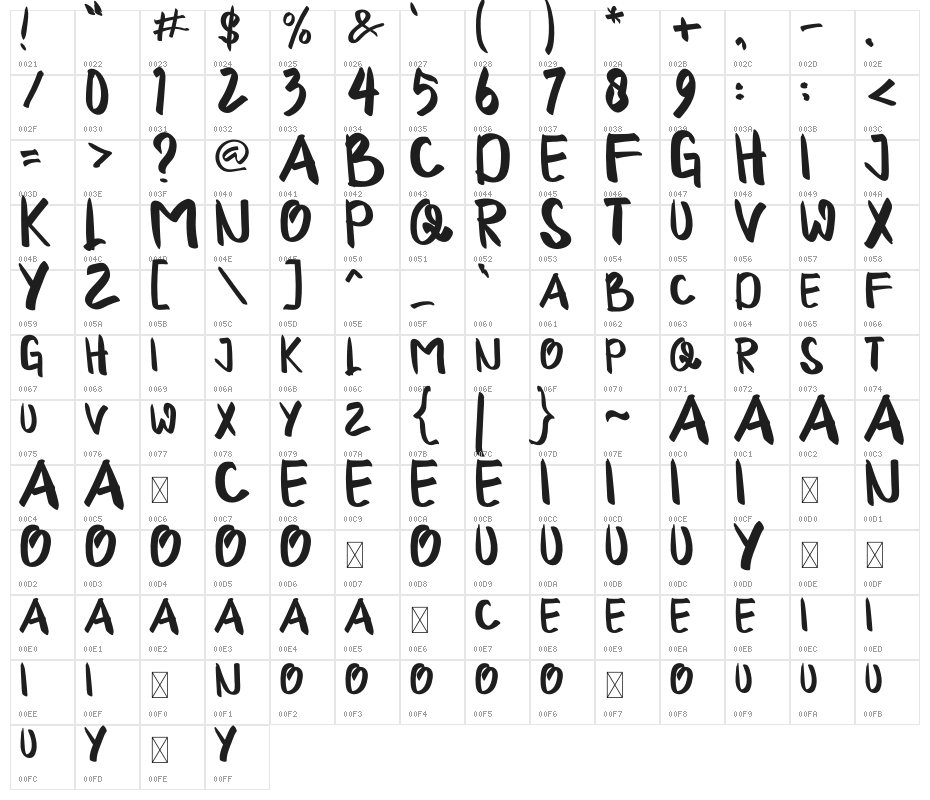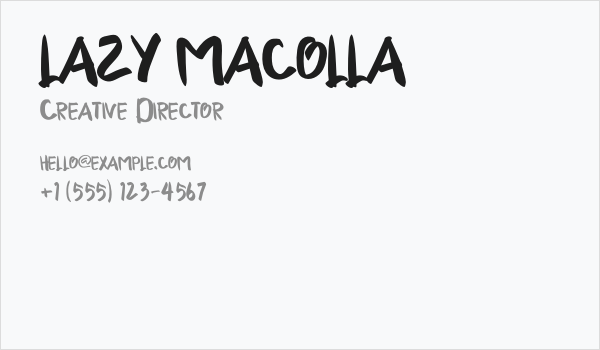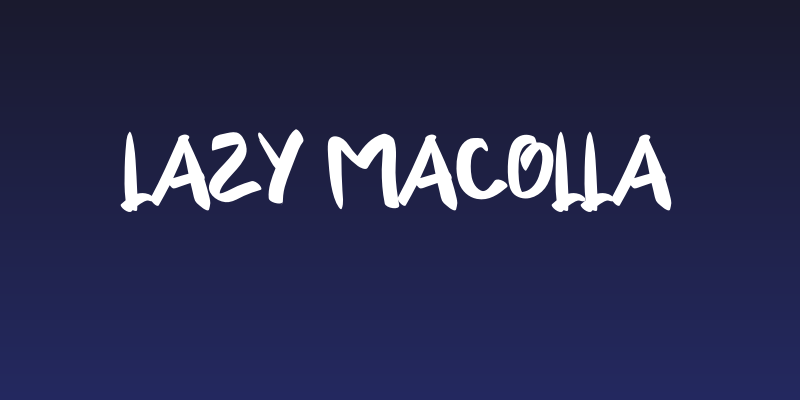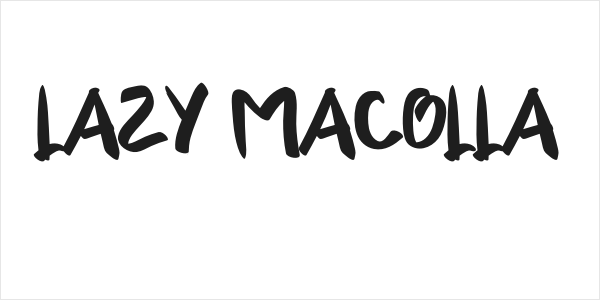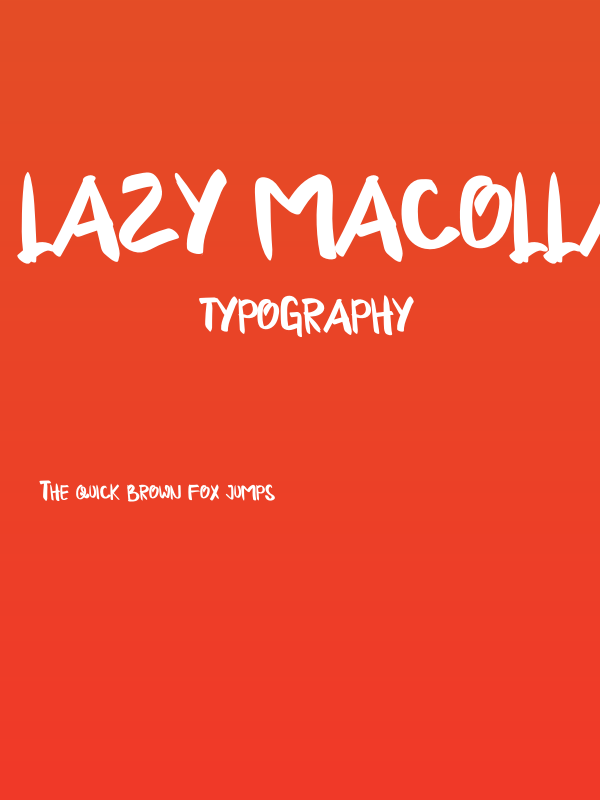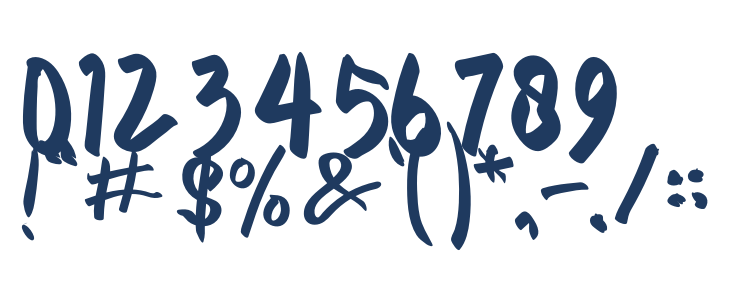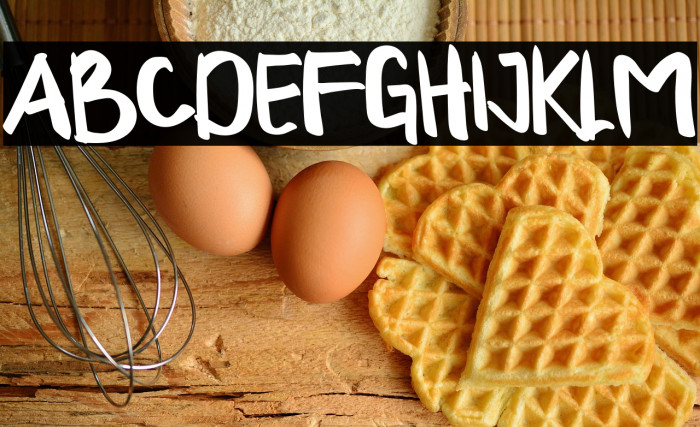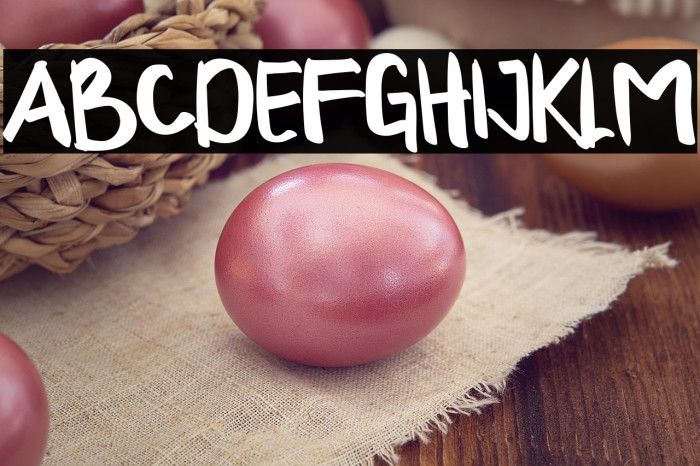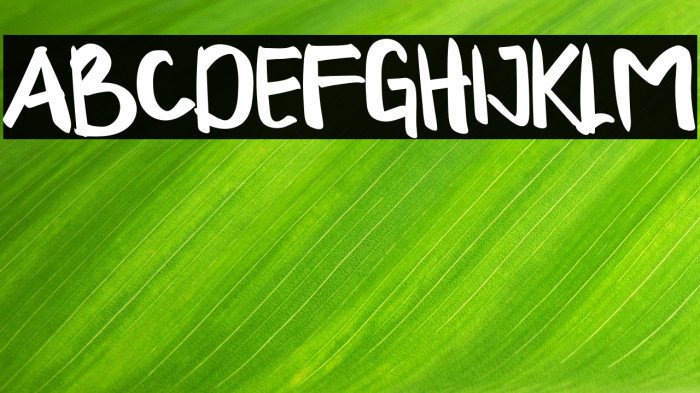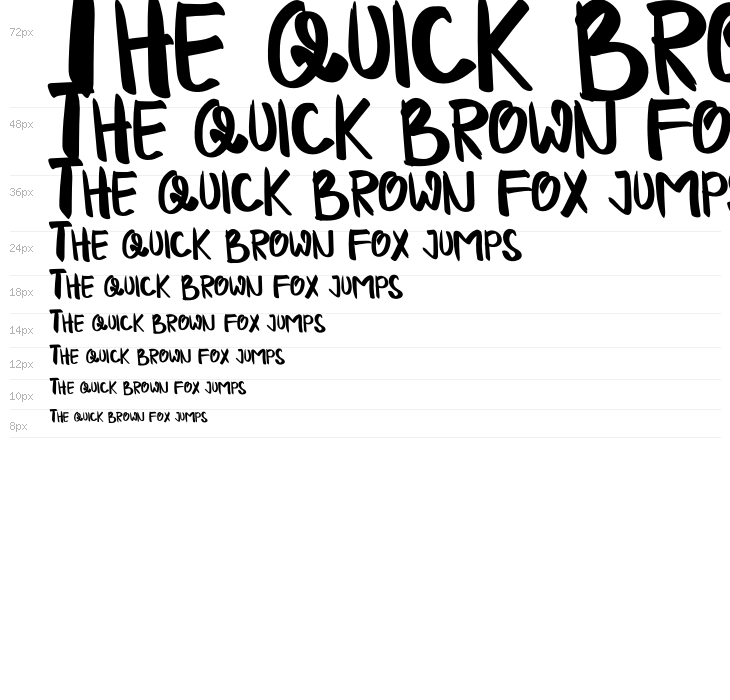
LAZY MACOLLA Font
LAZY MACOLLA Description
This font features a bold, handwritten style with a playful and energetic appearance. The characters are slightly irregular, giving it a casual and informal feel. The strokes are thick and consistent, with rounded edges that add to its approachable and friendly vibe. This font is highly legible, making it suitable for a variety of uses where a personal touch is desired. The numbers and special characters maintain the same playful style, ensuring consistency across all text elements.
| Overall Style | Casual and playful |
| Proposed Projects | Ideal for greeting cards, posters, children's books, and branding projects that require a personal and friendly touch. |